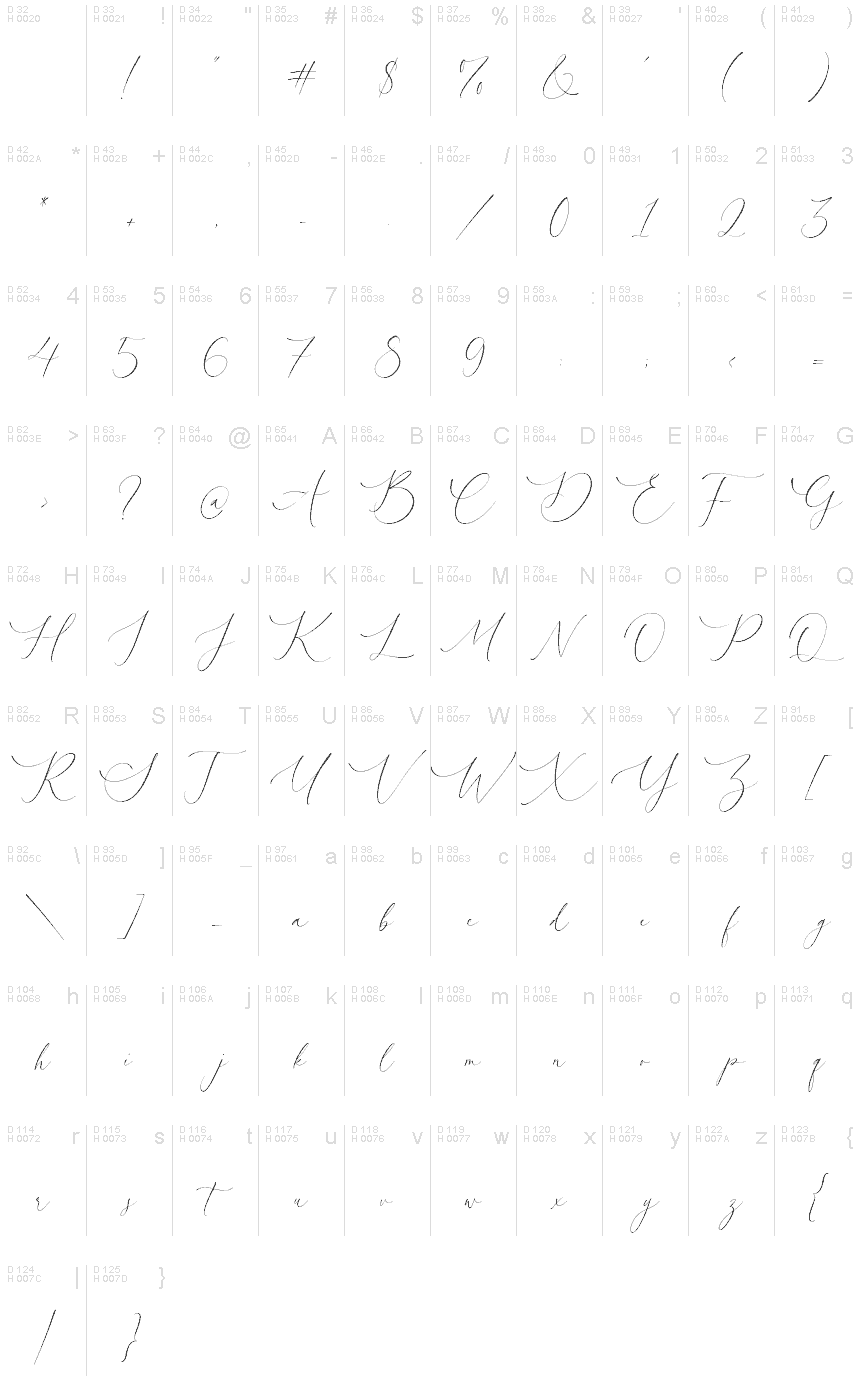
Courtney Martines
Courtney Martines font by Timur Type is a sophisticated signature-style light font with a stylish touch. Its exquisite flowing letters and contemporary appearance make it ideal for creative projects that need elegance. Combining balance and beauty, the font has no shortage of unique character, as it was initially shaped by natural handwriting processes making each letter visible.
Because it’s free, Courtney Martines can be downloaded and then used in an array of styles and projects. Its top uses include signatures, invitations, wedding card decorations, photography branding, social media posts branding as well as website typography for visually consistent businesses.